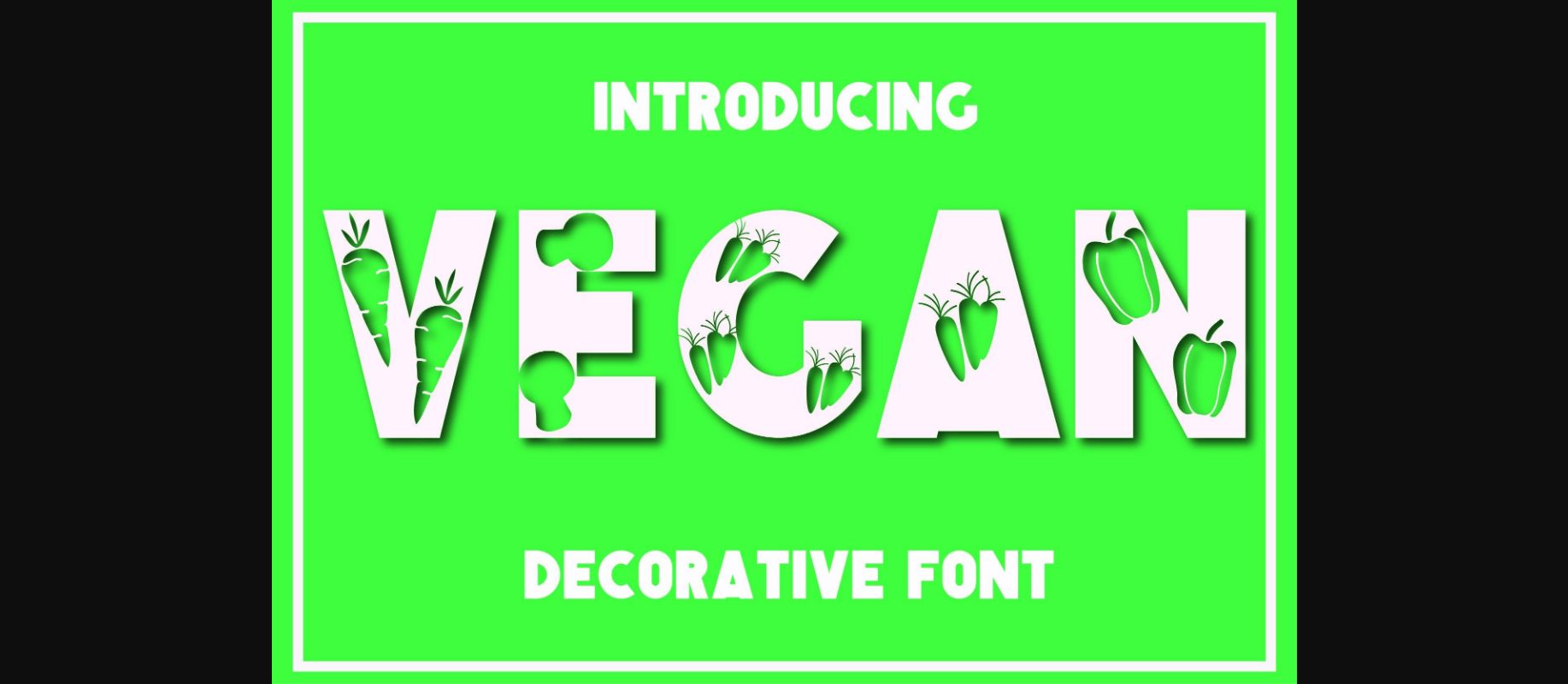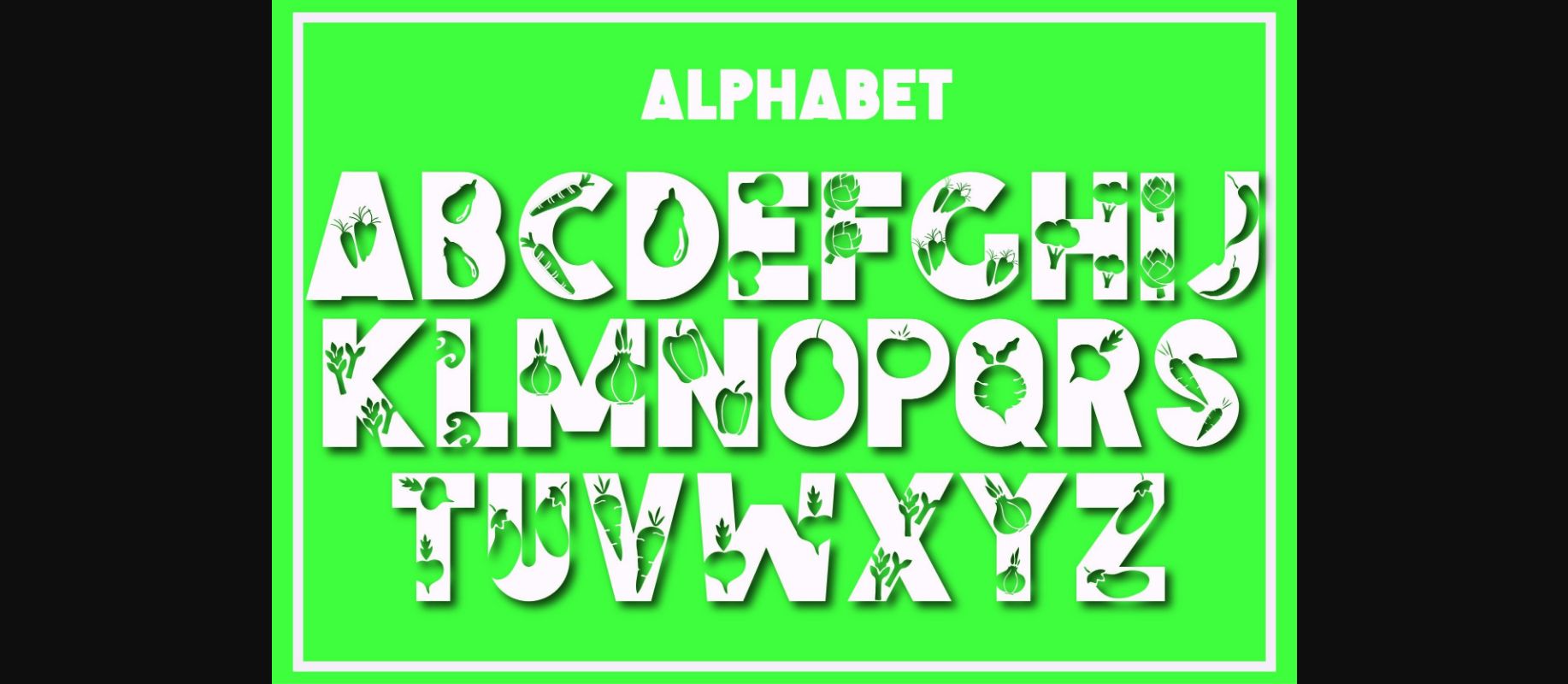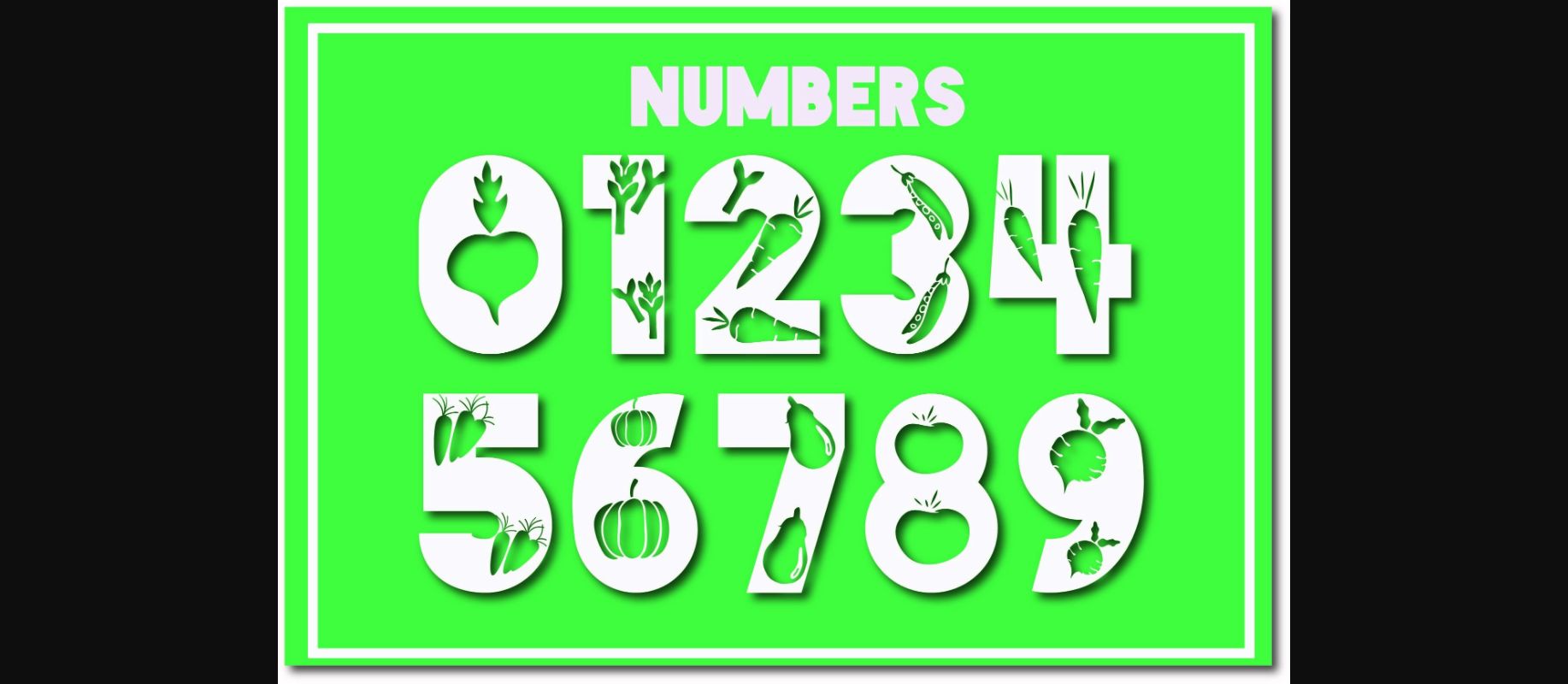
Vegan is a fun and cool decorative font. With its cute vegetable and fruit decorative elements, this font is perfect for all your nature or food-related crafts.